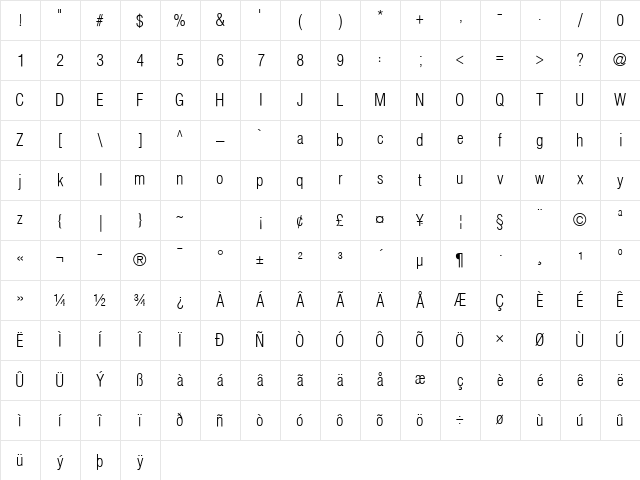
Isra Thin
Style: Thin
Designer: Almamoun Ahmed
Design Context for Isra
Isra is a composed and adaptable typeface that performs quietly and consistently across a wide range of design contexts. Its slender proportions lend an understated elegance to any composition.